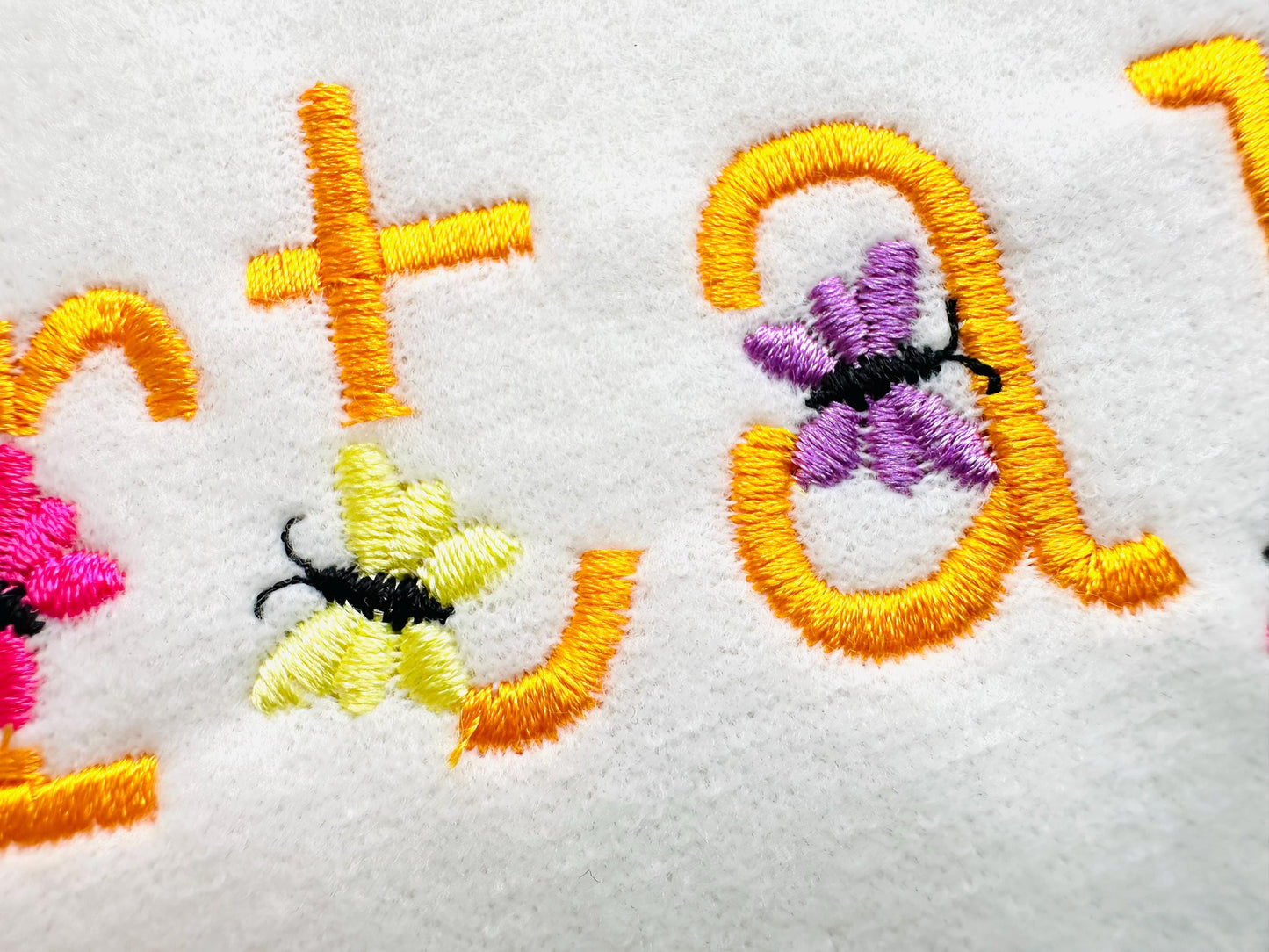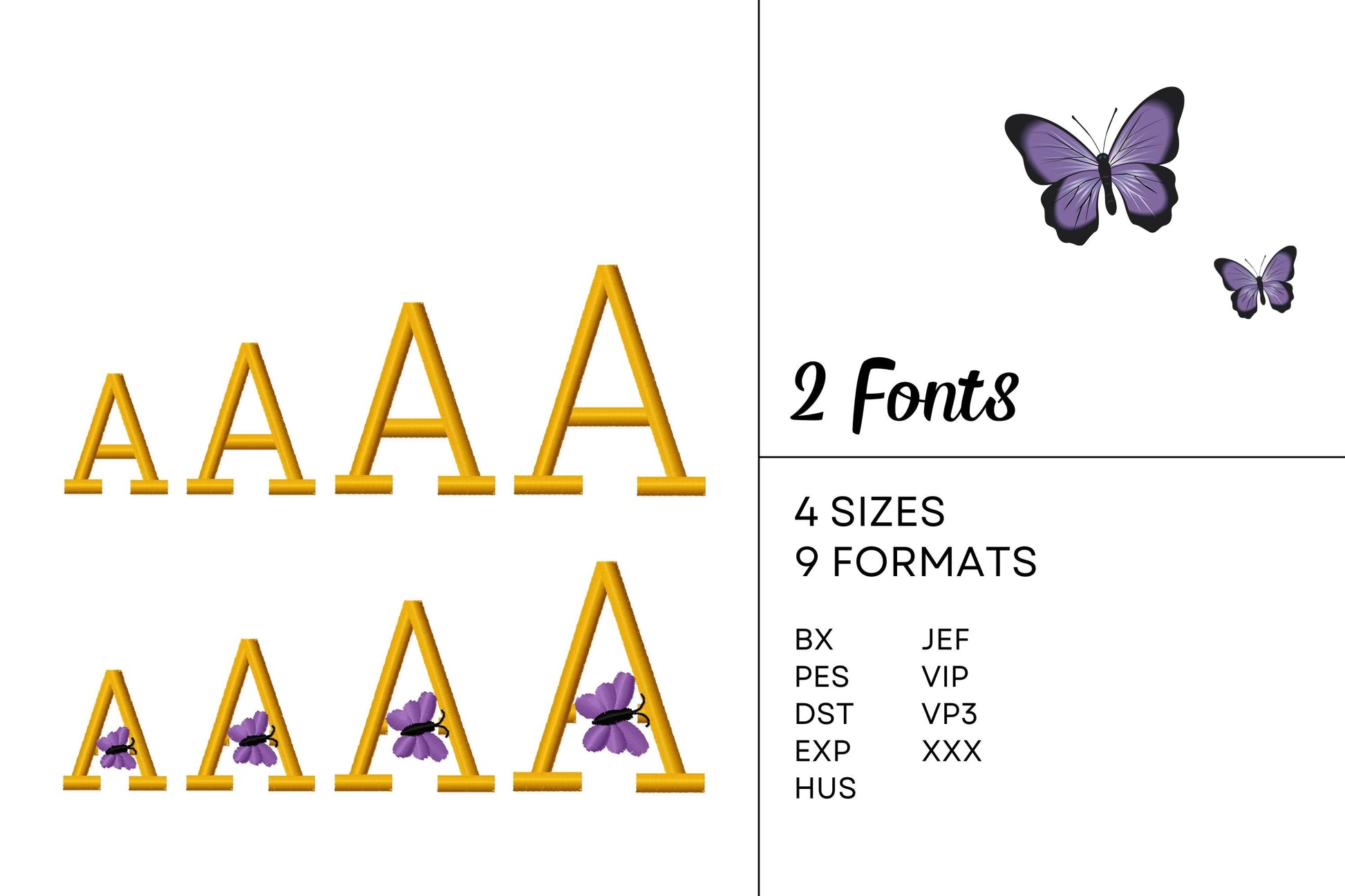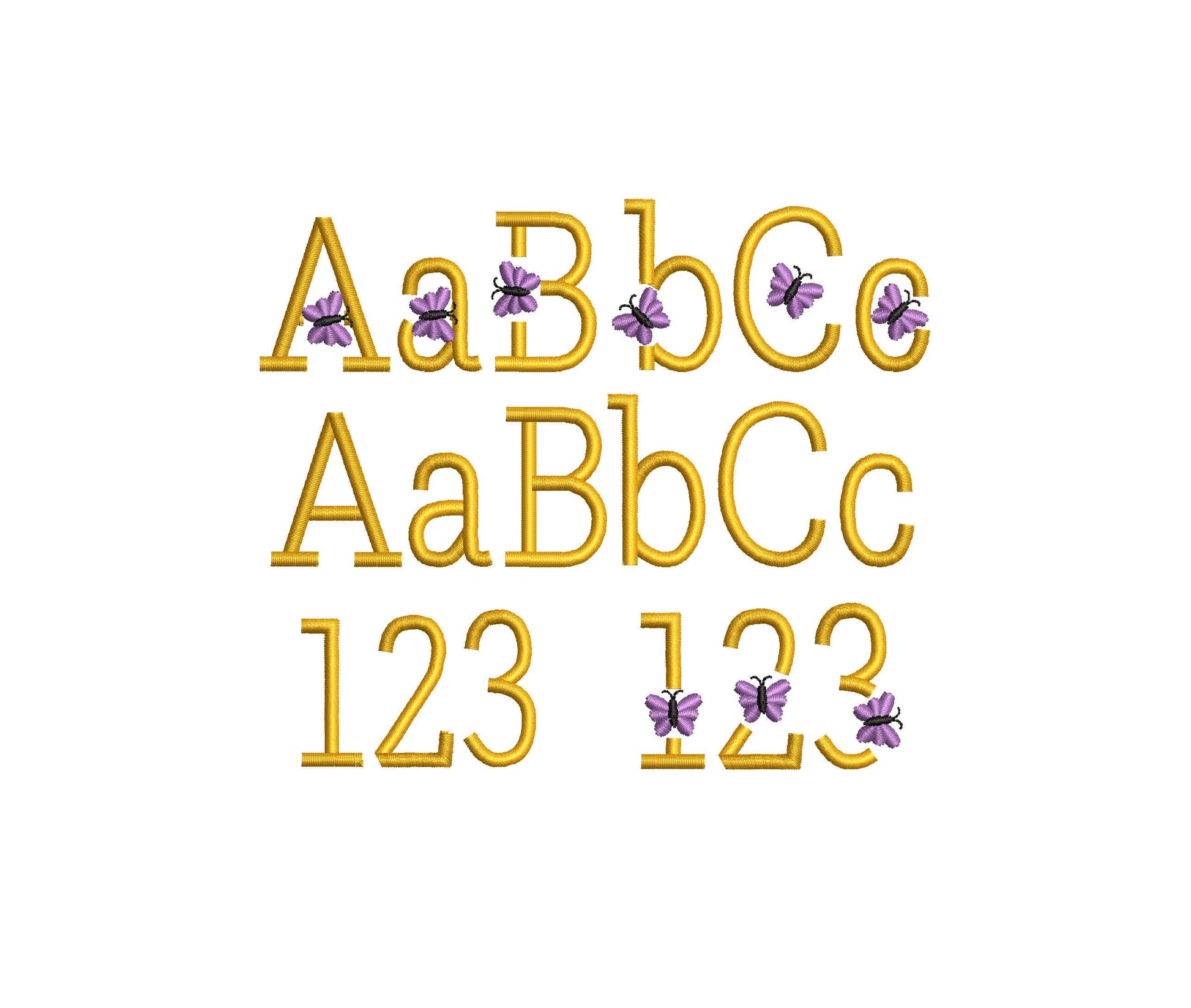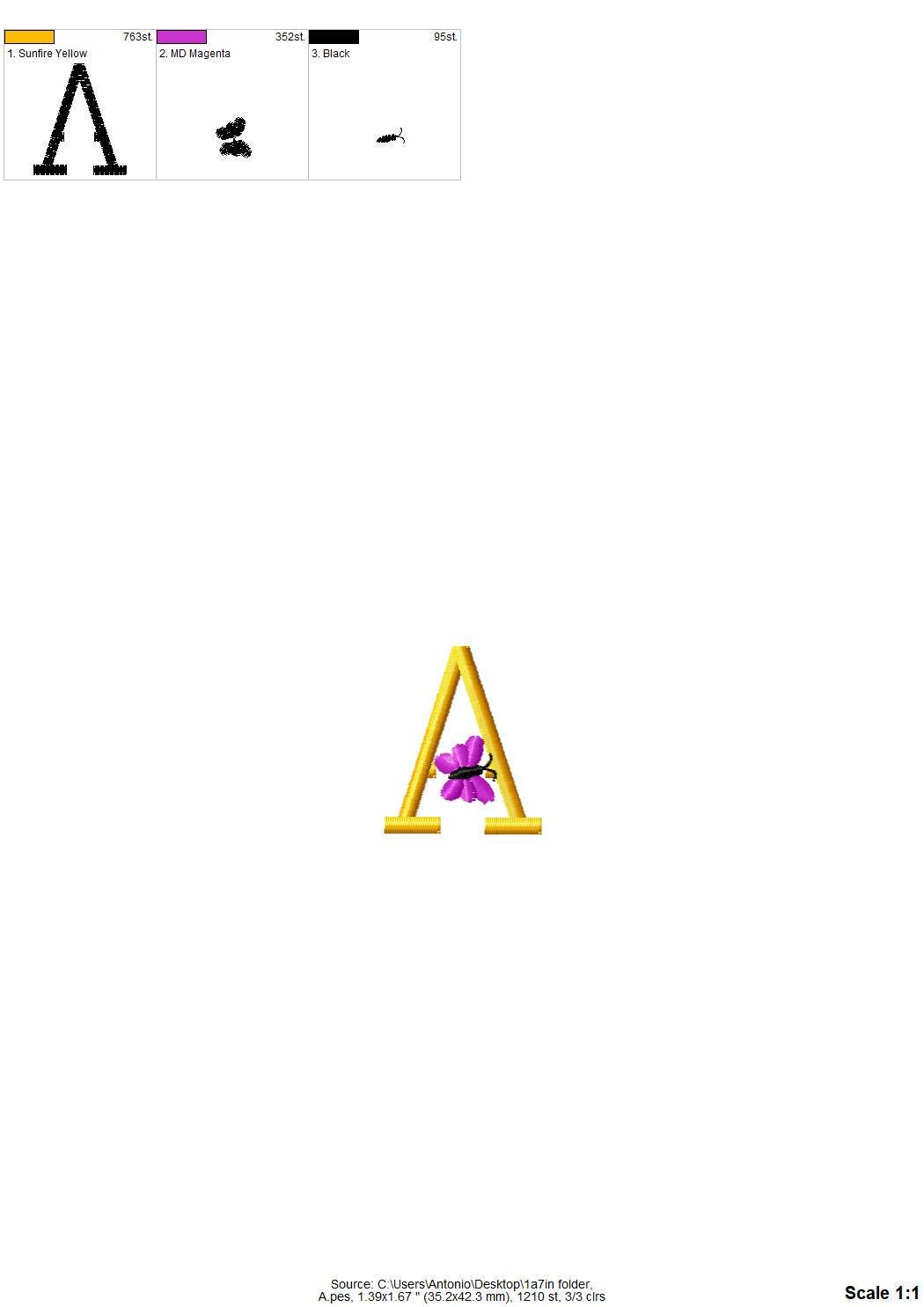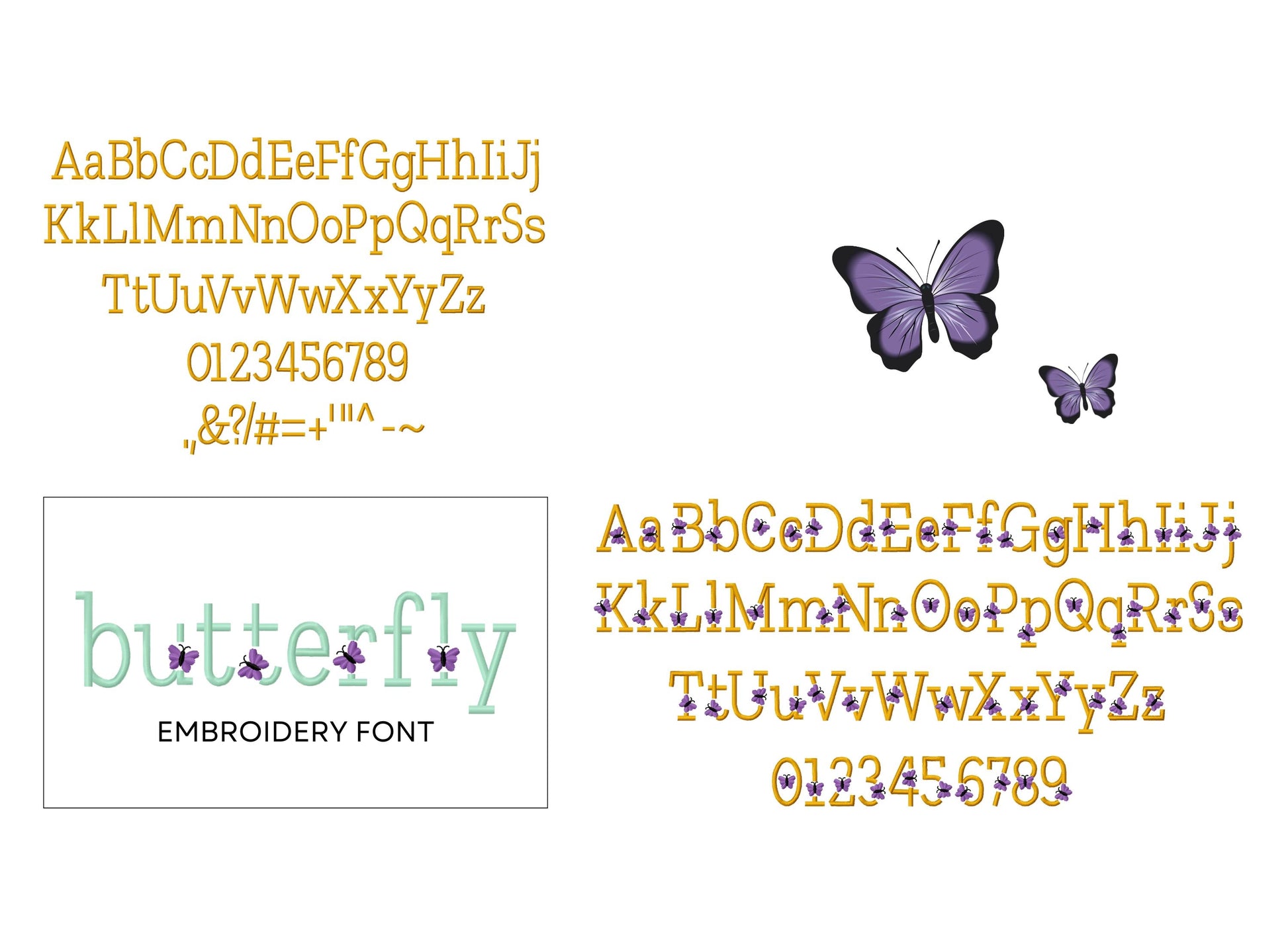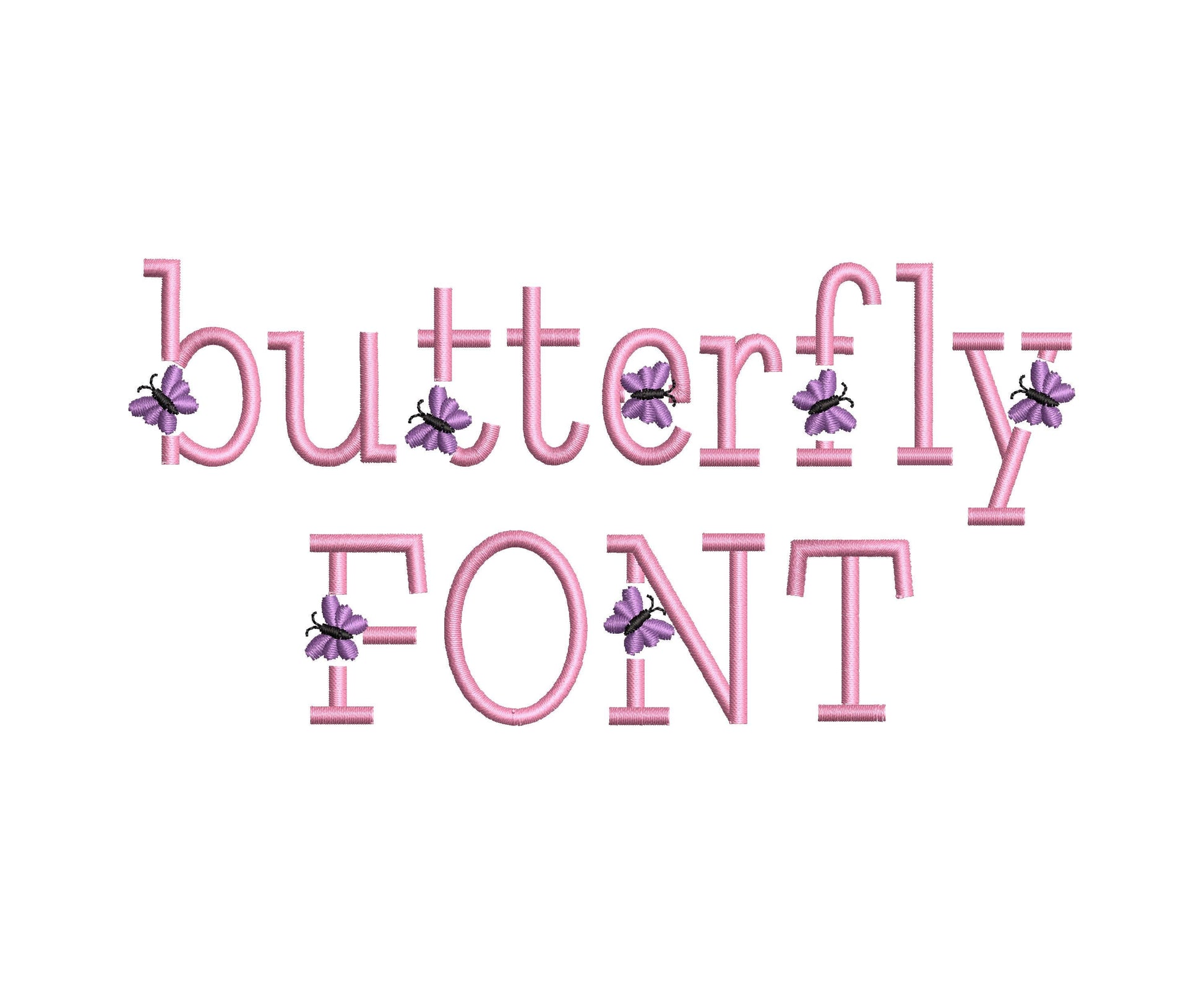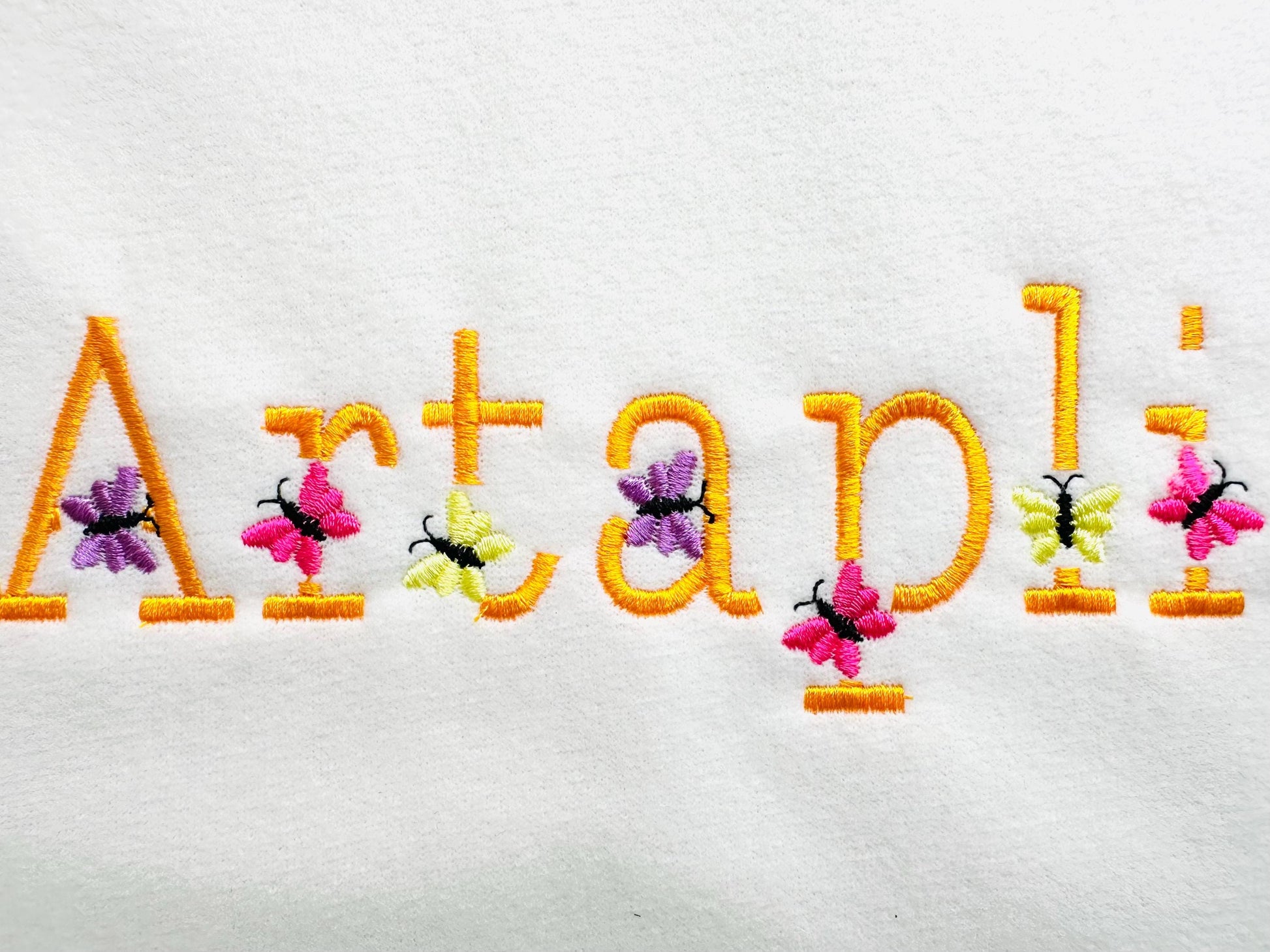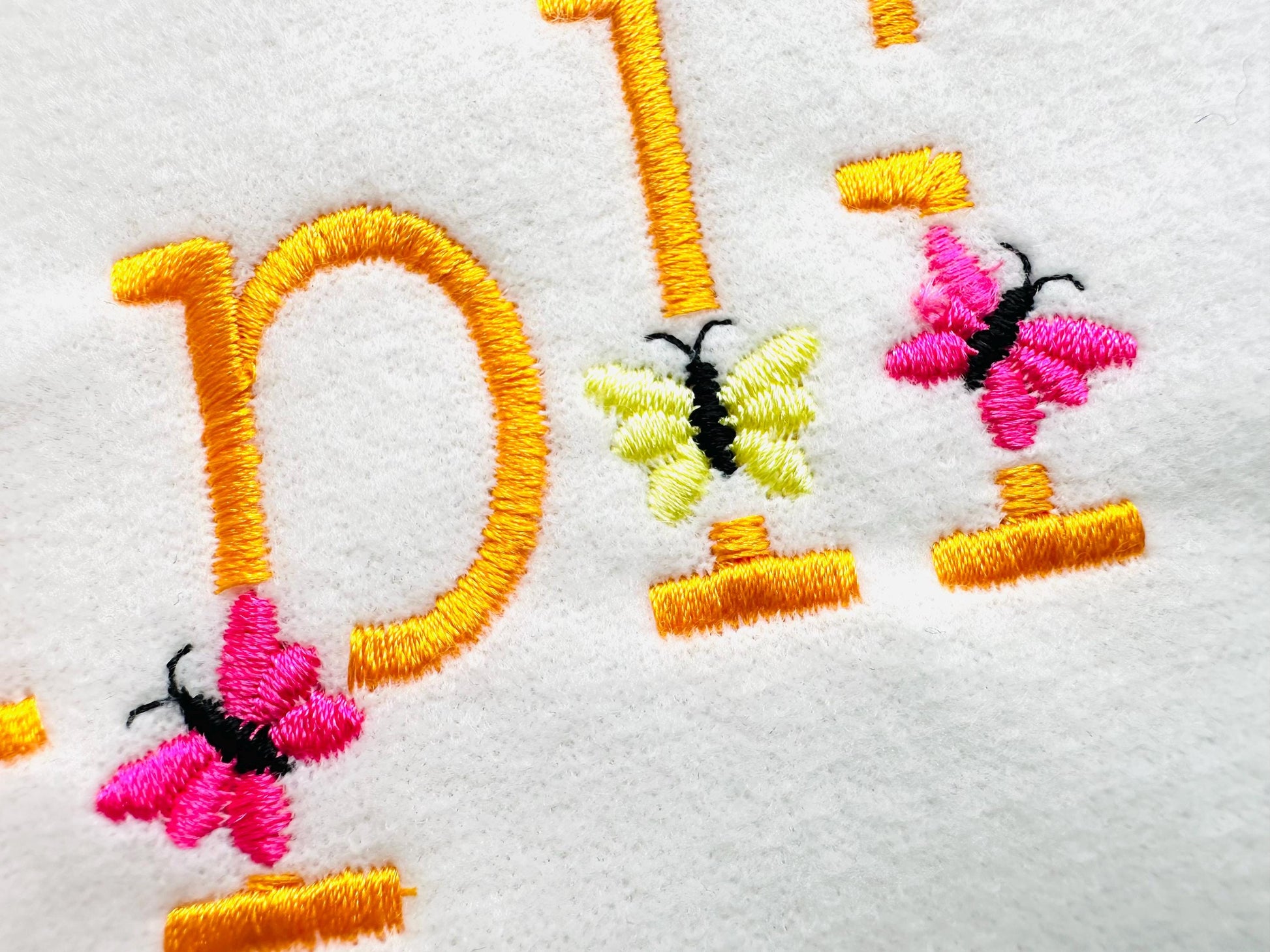
Or click to open the linkTwo mini satin stitch fonts in one set: one plain and one with little butterflies. Sweet for girls' names and monograms.
Both fonts come in four sizes: 1, 1.3, 1.7 and 2 inches. The plain font has uppercase and lowercase letters, numbers and punctuation; the butterfly font has uppercase and lowercase letters and numbers.